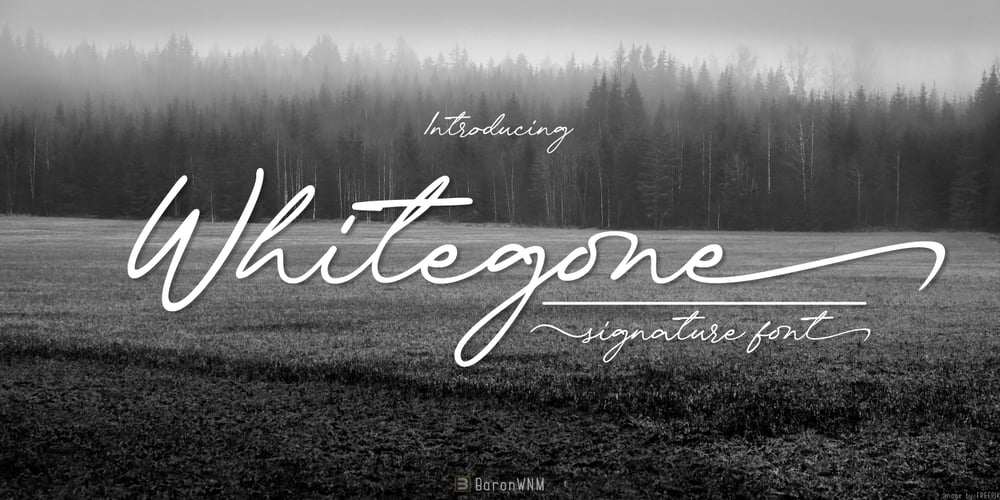
Whitegone
Whitegone font
Whitegone Font Family was designed by Rahmad Mulyadi and published by BaronWNM. Whitegone contains 1 styles and family package options. Thank you for visiting our item. Whitegone is a hand-scratched script font that gives a natural-looking impression that is perfect for those of you who want to use a signature font. Whitegone is very suitable for digital branding, advertising, name cards, product labels, printing t-shirts, greeting cards, invitation cards, etc. Whitegone has several ligatures, alternates, begining and ending swashes to give a sweet touch at the beginning and end of words.